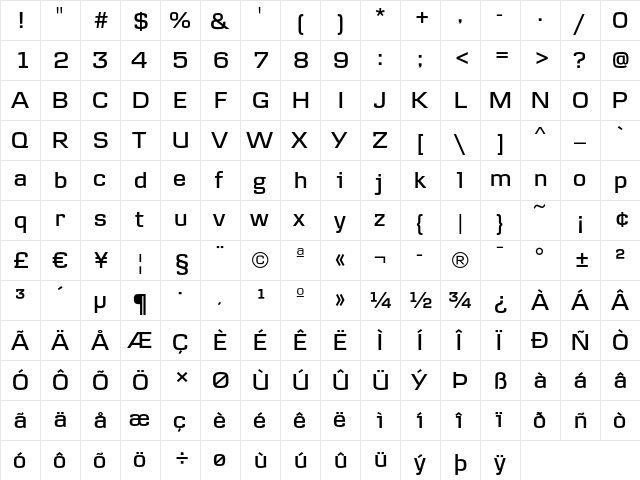
DanskeHeadlineSemiBold [BETA] Medium
Design Context for DanskeHeadlineSemiBold [BETA] Typeface
DanskeHeadlineSemiBold [BETA] takes a measured approach to typography — its balanced proportions and neutral character make it a reliable workhorse for both digital and print work. Its bold stroke weight gives it real presence on the page.